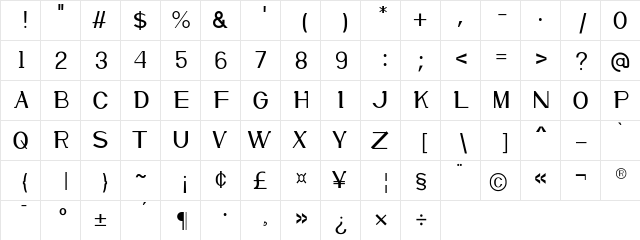
Mellow Reguler
Reguler · Apriadsgn Anton Priyatna & Rian Wardaya ·
Foundry Apriadsgn
DesignerAnton Priyatna & Rian Wardaya
Design Context for Mellow Typeface
Mellow offers clean, dependable letterforms without strong stylistic allegiance, making it a practical choice for designers who need flexibility.